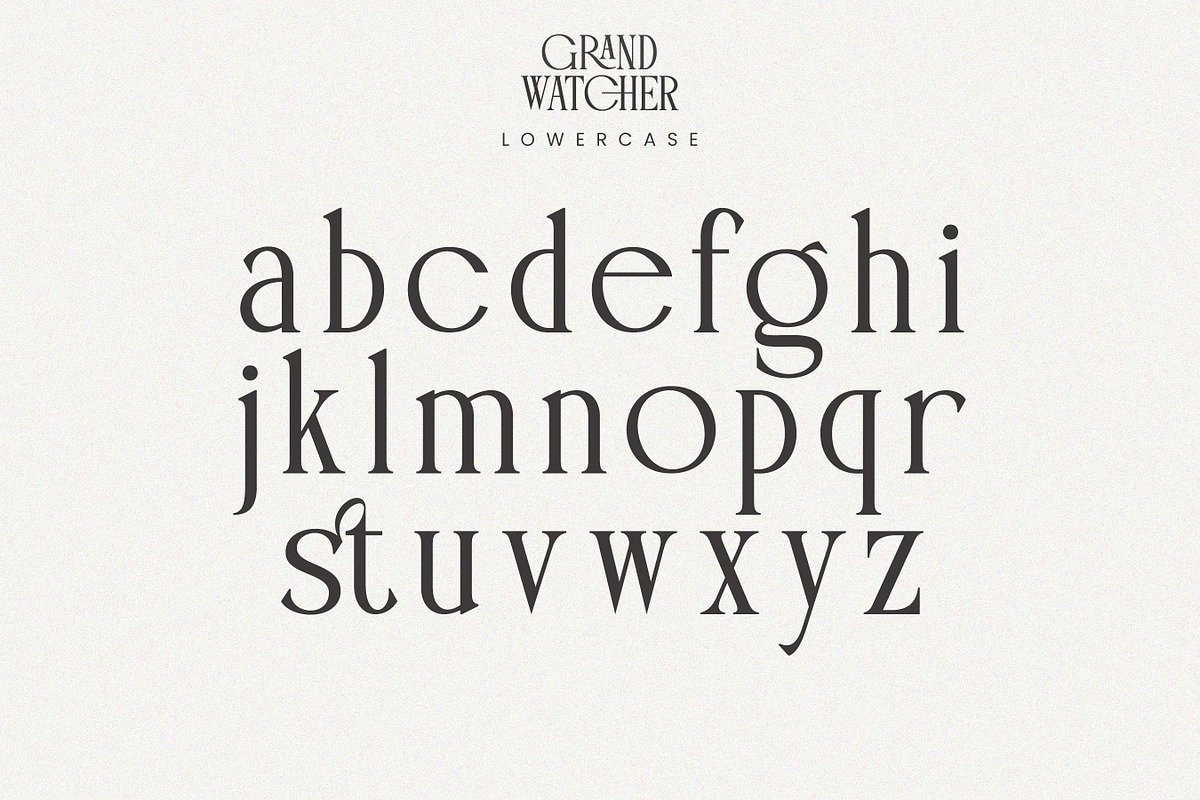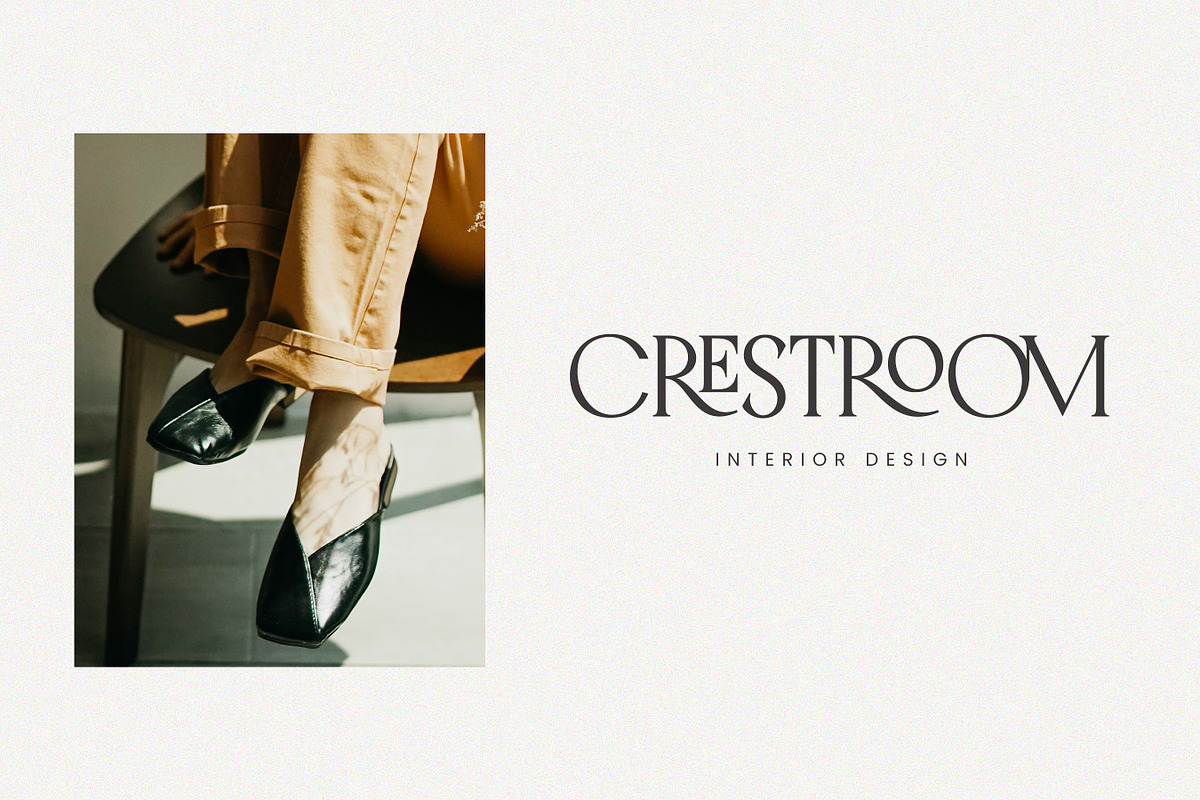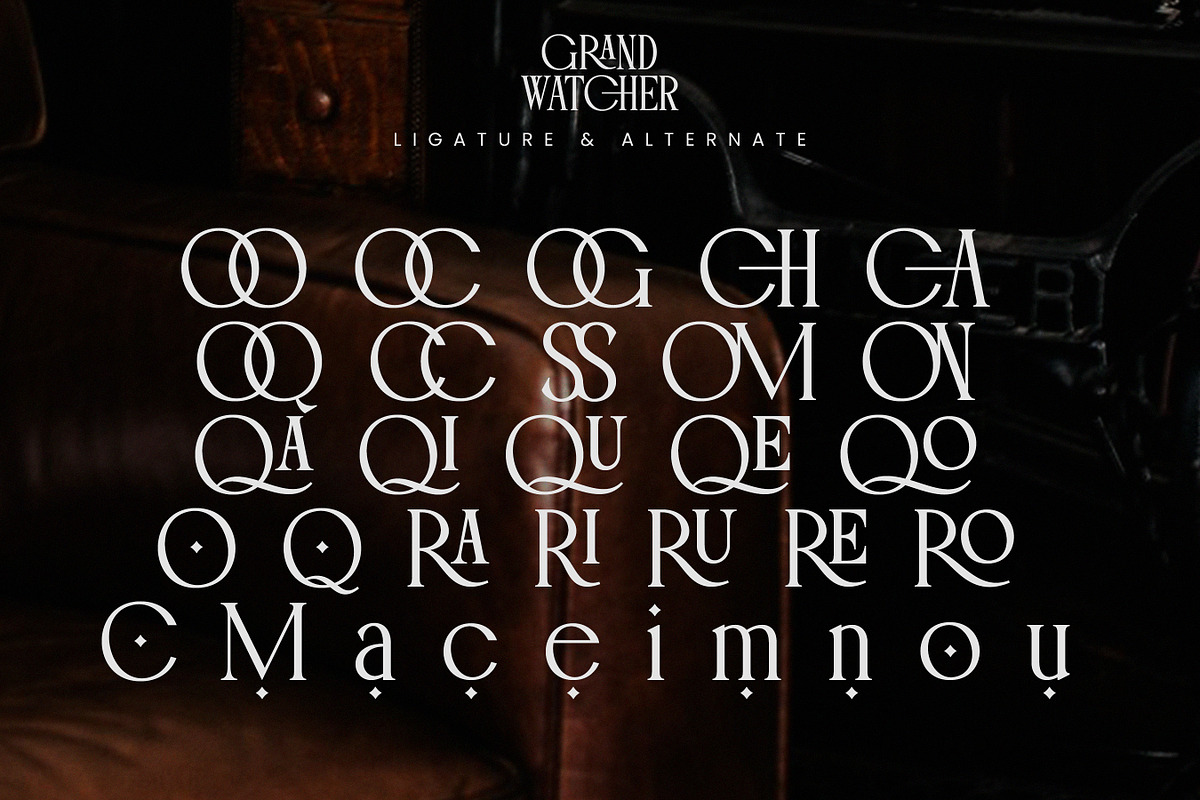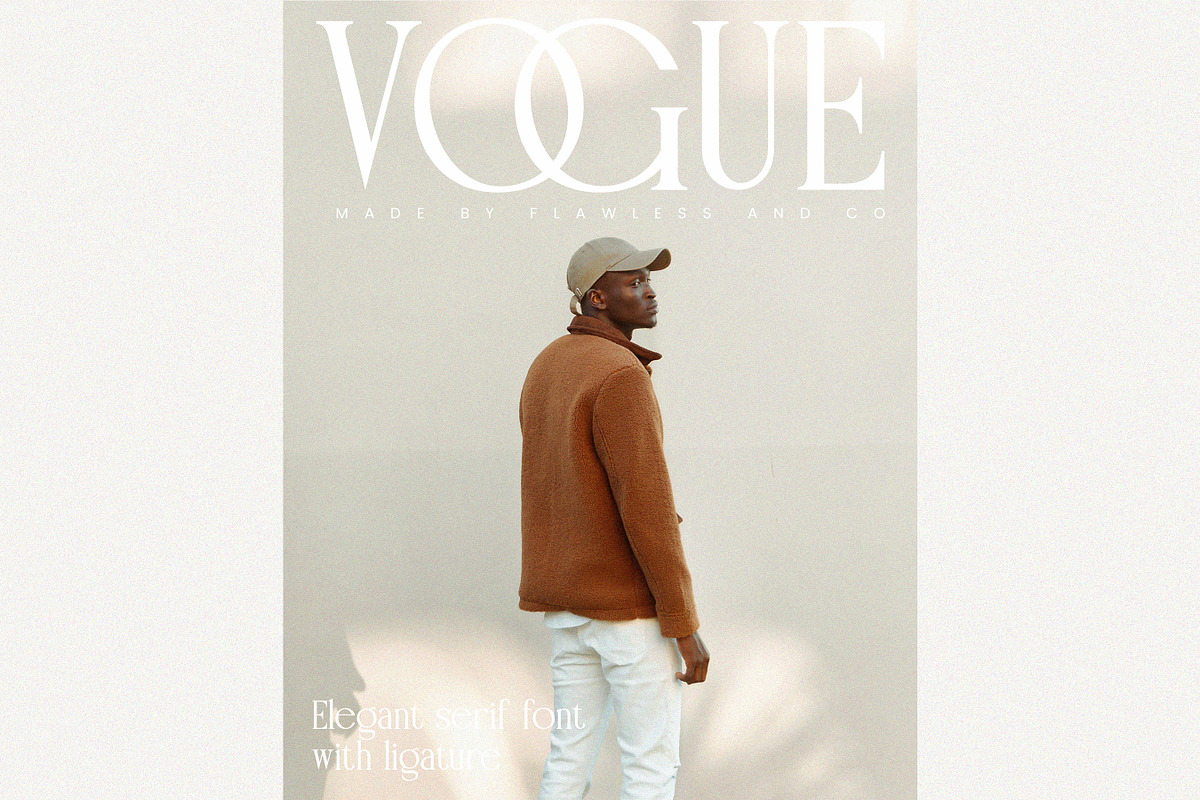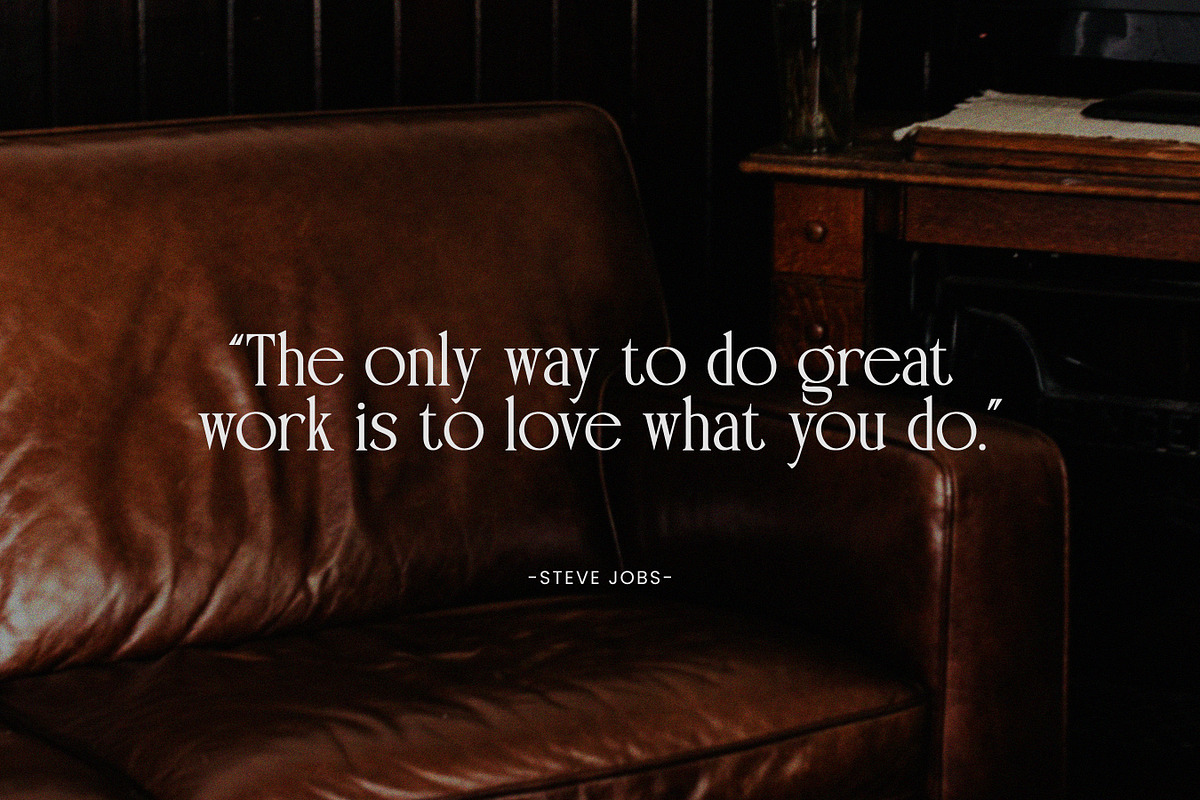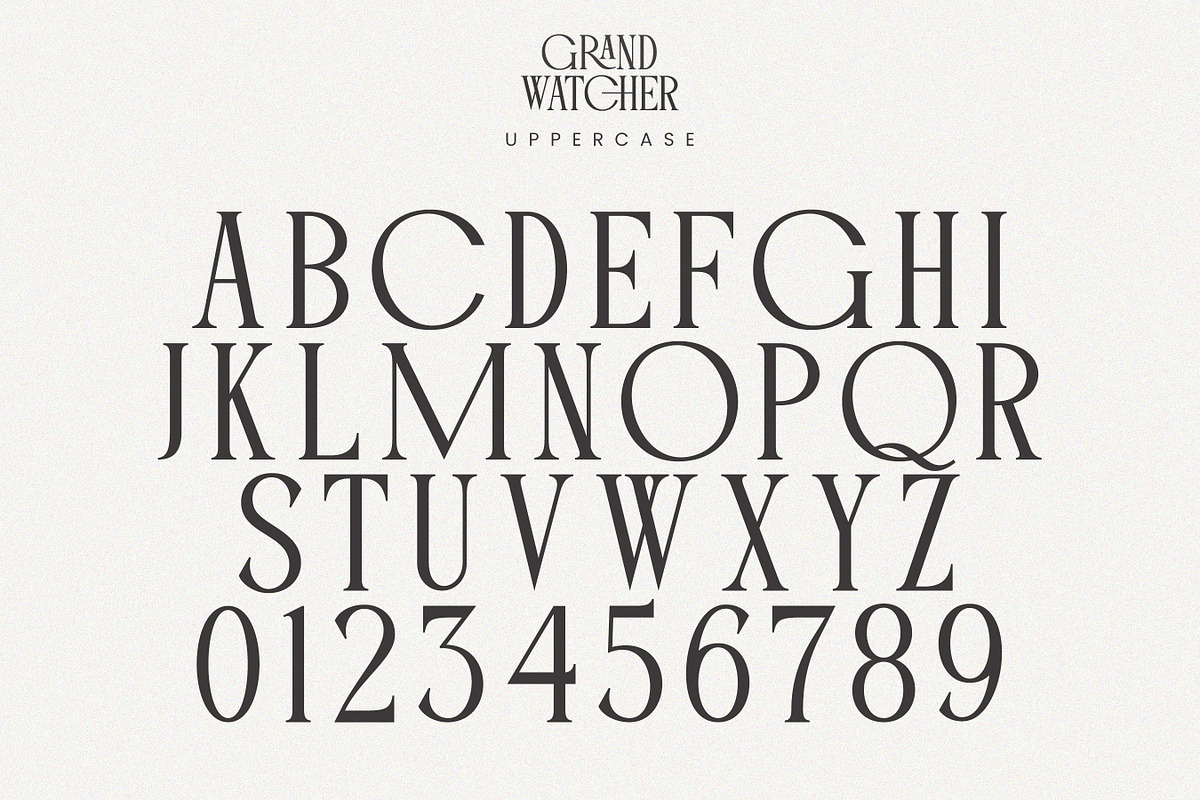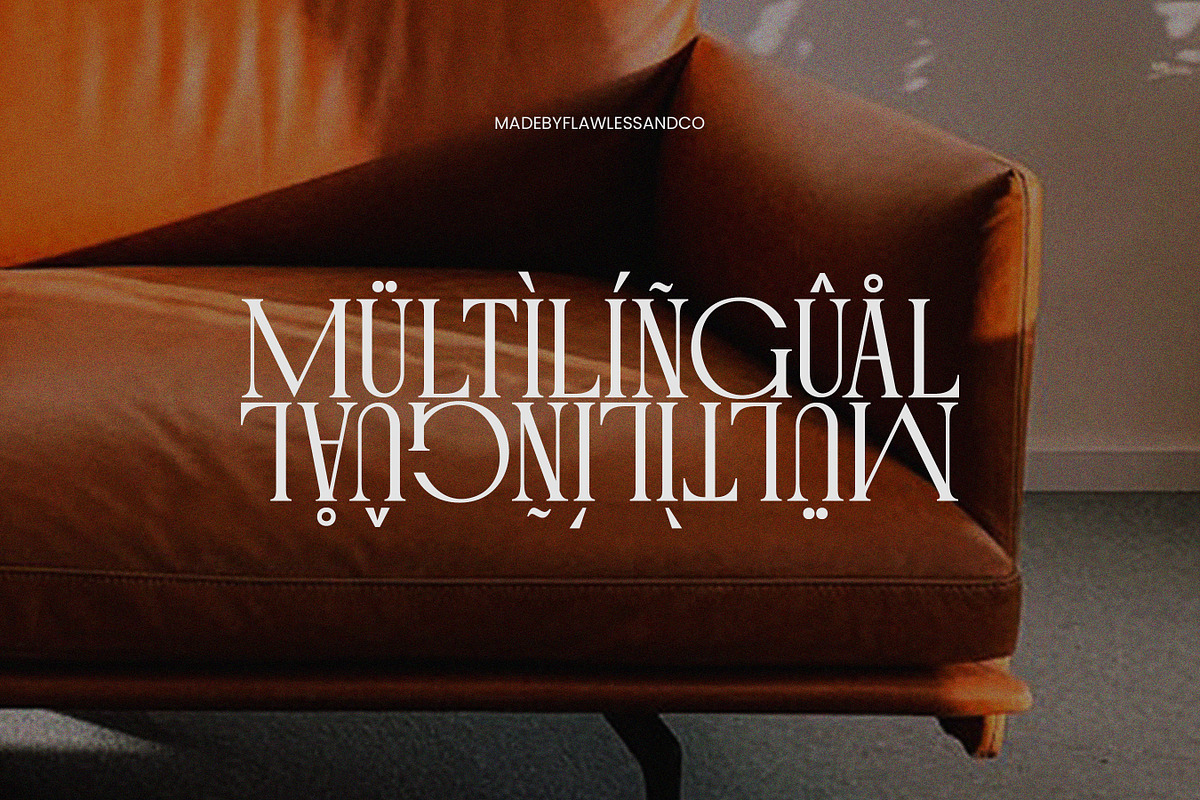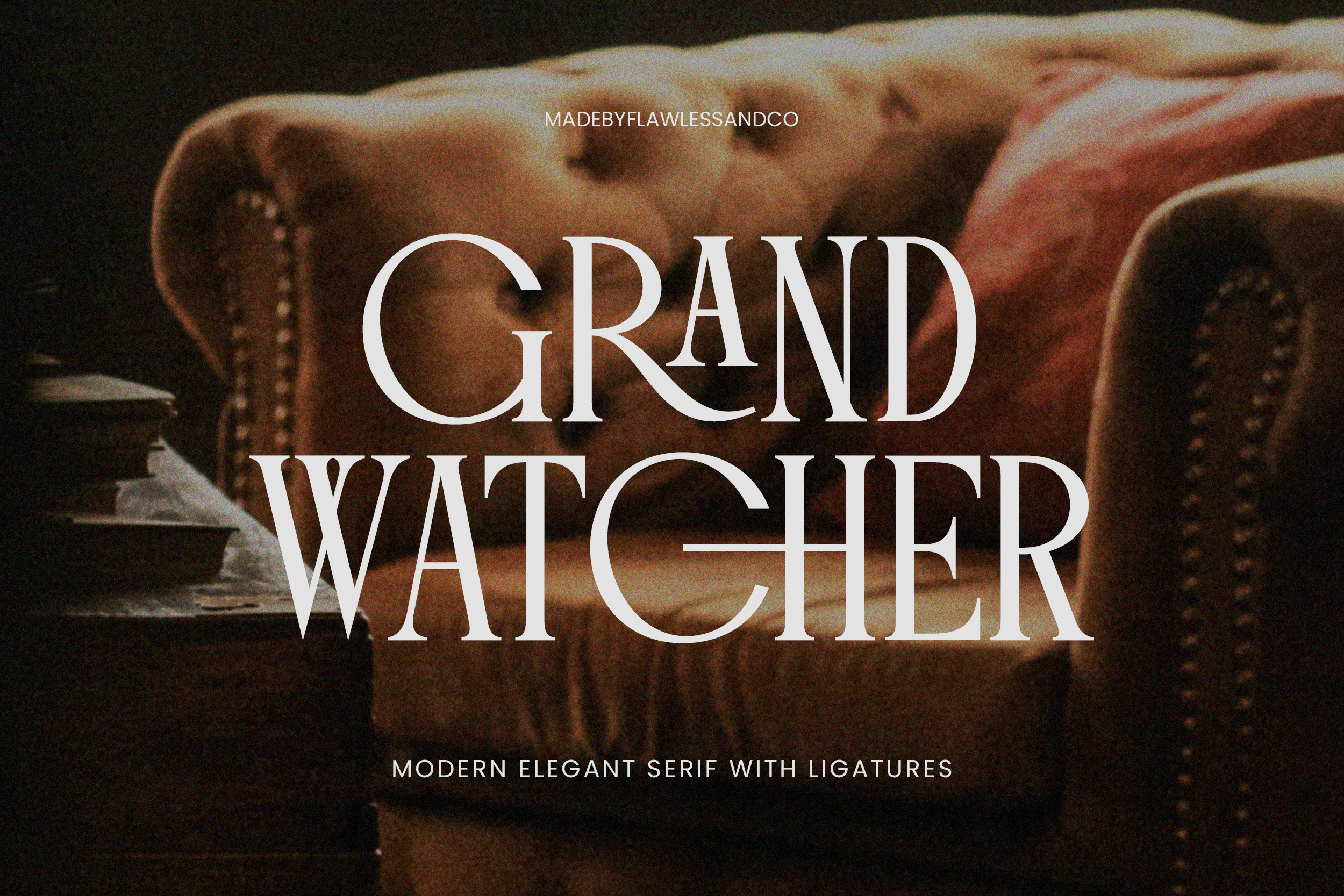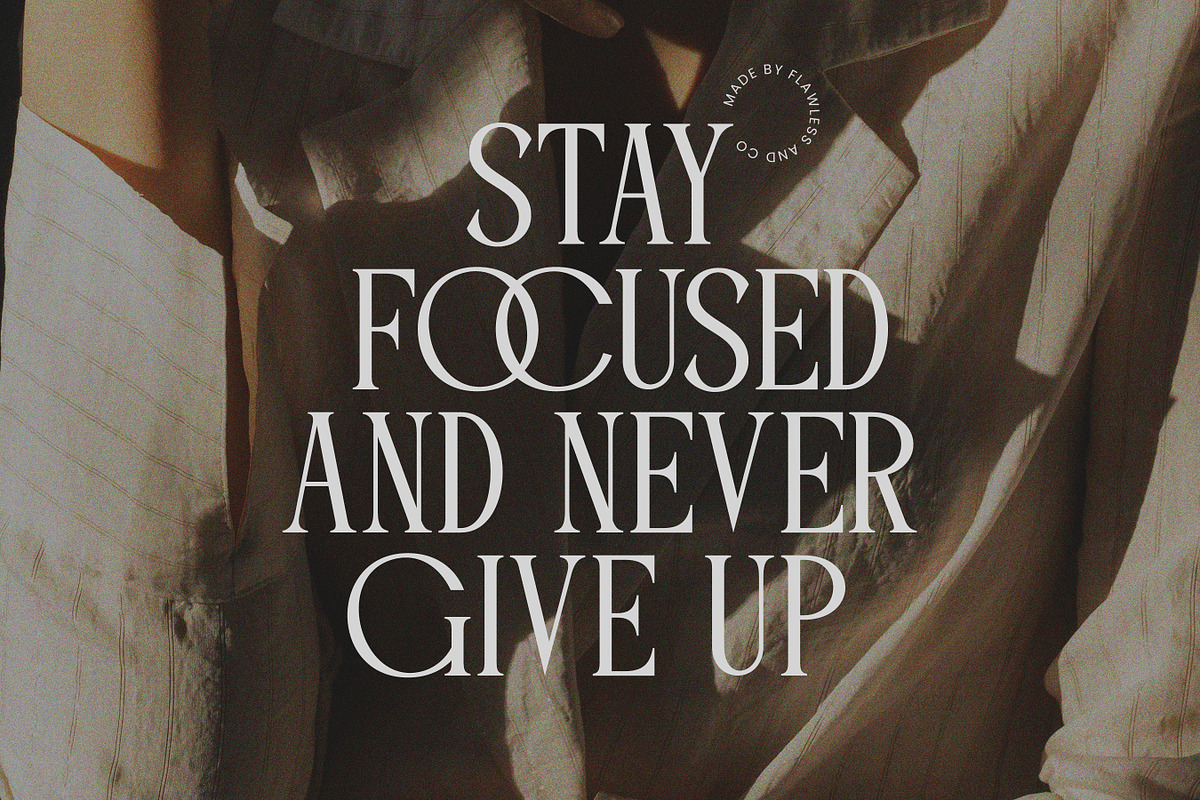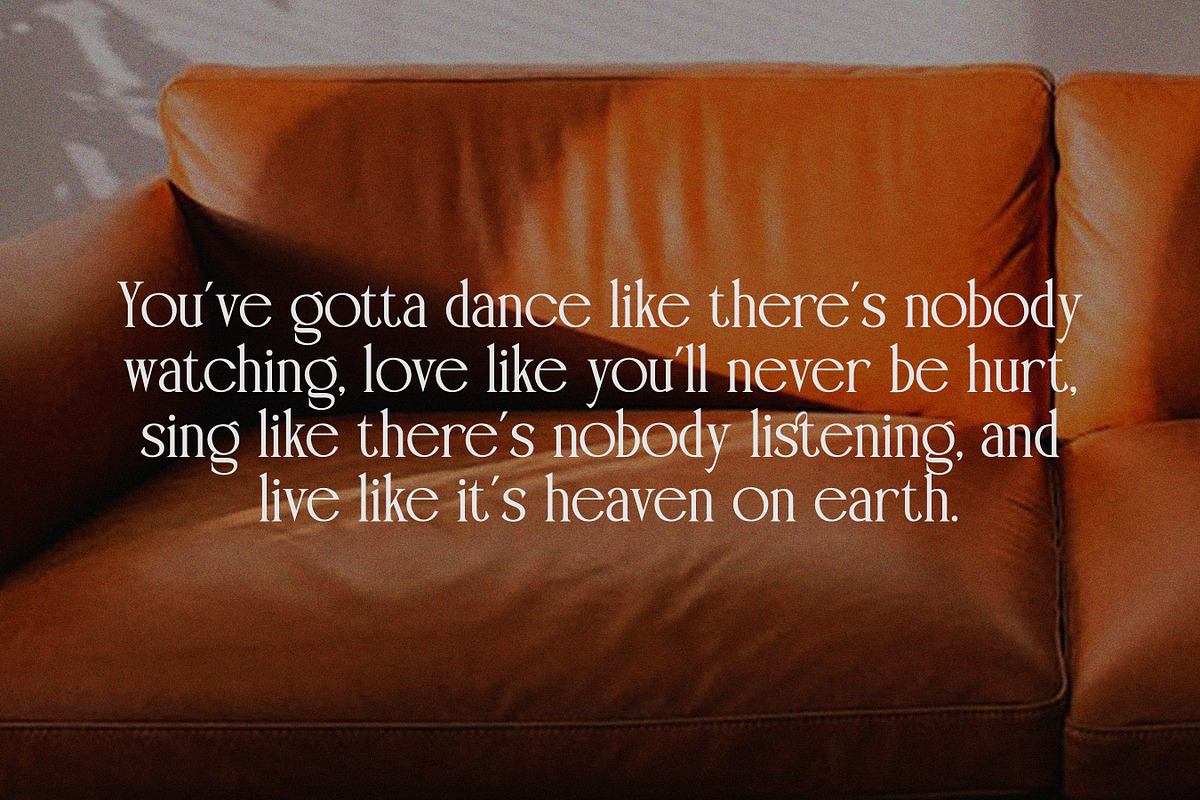
Grand Watcher - Elegant Serif Font
Introducing "Grand Watcher," a refined serif font combining timeless elegance and modern design. With its sleek letterforms and beautifully crafted ligatures, Grand Watcher is perfect for adding a touch of sophistication to your projects. This font is suitable for any graphic design, such as branding materials, wedding stationery, product packaging, branding and logo, etc.
Multilingual Uppercase alphabet A-Z Lowercase alphabet a-z Alternate Character Numbers 0-9 Some punctuation